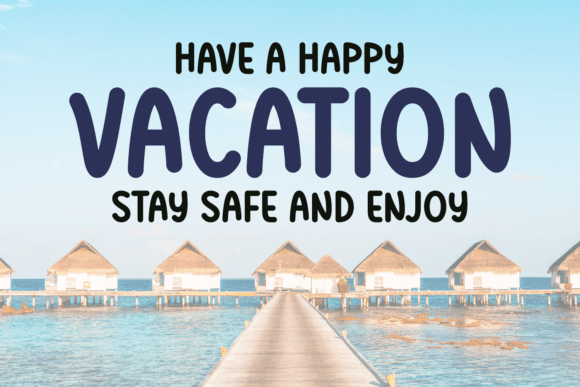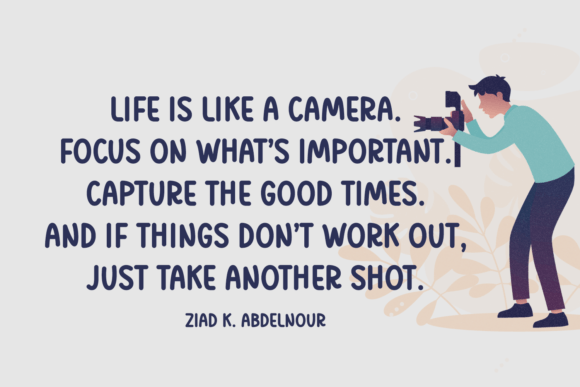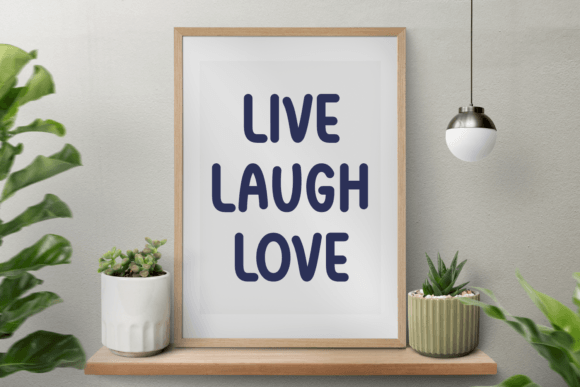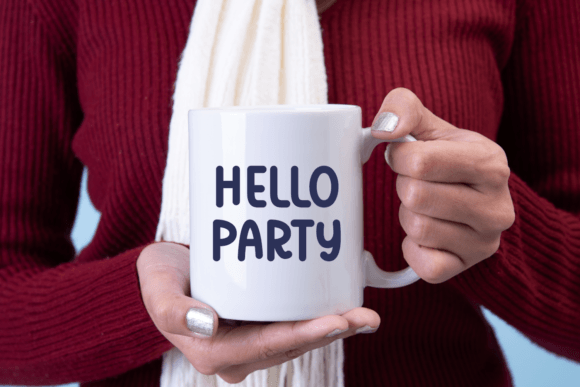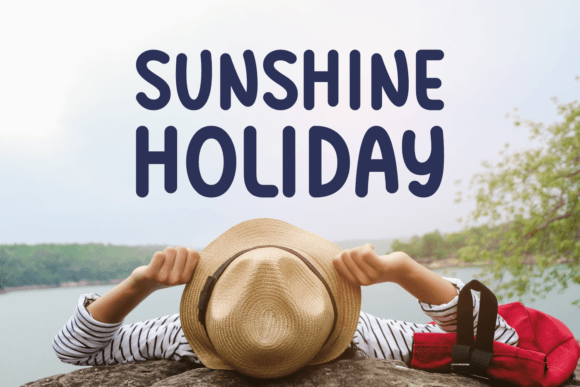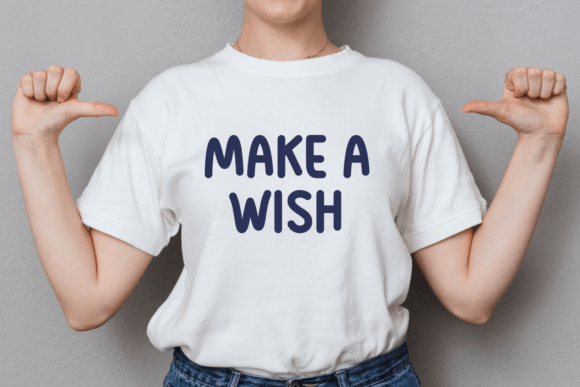
Introducing Camera Action Font: The Friendly Handwritten Typeface for Personal and Creative Projects
In the world of typography, few fonts manage to convey the warmth and approachability of handwriting while maintaining a level of elegance and sophistication. Camera Action Font is one such typeface that has captured the hearts of designers and crafters alike with its friendly, handwritten aesthetic. This versatile font is perfect for a wide range of projects, from personal branding and logos to greeting cards and invitations, offering a unique blend of casual charm and authenticity.
The Essence of Camera Action Font
Camera Action Font is a friendly handwritten font that exudes warmth and approachability. Its casual elegance makes it an ideal choice for projects that aim to convey a personal touch or a sense of authenticity. The font’s design is reminiscent of handwritten text, with subtle variations in line width and a gentle flow that gives it a natural, effortless look.
Key Features of Camera Action Font
- Handwritten Aesthetic: Camera Action boasts a genuine handwritten look that adds a personal touch to any project.
- Warm and Approachable: The font’s warm and inviting nature makes it perfect for creating a connection with the audience.
- Versatile: Suitable for a wide range of design projects, from personal branding to promotional materials.
- Elegant yet Casual: Strikes the perfect balance between elegance and casualness, making it suitable for various design needs.
Use Cases for Camera Action Font
Camera Action Font is well-suited for a variety of design projects, including:
1. Personal Branding
For designers and entrepreneurs looking to create a personal brand that stands out, Camera Action Font offers a unique and memorable typographic solution. Its friendly and approachable nature helps in establishing a connection with the audience, making your brand more relatable.
2. Logos and Wordmarks
For logos and wordmarks that require a touch of personality, Camera Action Font is an excellent choice. Its handwritten aesthetic can help your logo stand out in a crowded marketplace, giving your brand a distinctive identity.
3. Handmade Products and Product Labels
For artisans and makers, Camera Action Font offers a typographic solution that complements handmade products beautifully. Its casual elegance and personal touch make it perfect for product labels, packaging, and promotional materials, helping to convey the story and craftsmanship behind each product.
4. Promotional Materials
From flyers and brochures to posters and banners, Camera Action Font can add a personal and engaging touch to your promotional materials. Its readability and aesthetic appeal make it an excellent choice for marketing and advertising projects.
5. Lifestyle Blogs
For lifestyle bloggers and influencers, Camera Action Font can enhance the visual appeal of your blog. Its friendly and approachable nature makes it perfect for blog headings, quotes, and highlighted text, adding a personal touch to your content.
6. Greeting Cards and Invitations
Camera Action Font is also ideal for creative projects such as greeting cards, invitations, and DIY crafts. Its handwritten aesthetic adds a warm and personal touch, making your cards and invitations more special and heartfelt.
Why Choose Camera Action Font?
Choosing Camera Action Font for your design projects comes with several advantages:
- Unique Identity: Offers a distinctive and memorable typographic solution that can help your project stand out.
- Emotional Connection: Its warm and approachable nature helps in creating an emotional connection with the audience.
- Versatility: Suitable for a wide range of projects, offering flexibility in your design work.
- Ease of Use: Designed to be user-friendly, making it easy to incorporate into various design applications.
Camera Action Font is a versatile and charming typeface that brings a personal touch to any design project. Its friendly handwritten aesthetic, combined with its elegance and approachability, makes it an excellent choice for designers and crafters looking to add a unique and memorable element to their work. Whether you’re creating personal branding, logos, product labels, promotional materials, or simply greeting cards and invitations, Camera Action Font offers the perfect blend of warmth, authenticity, and style to make your projects stand out.